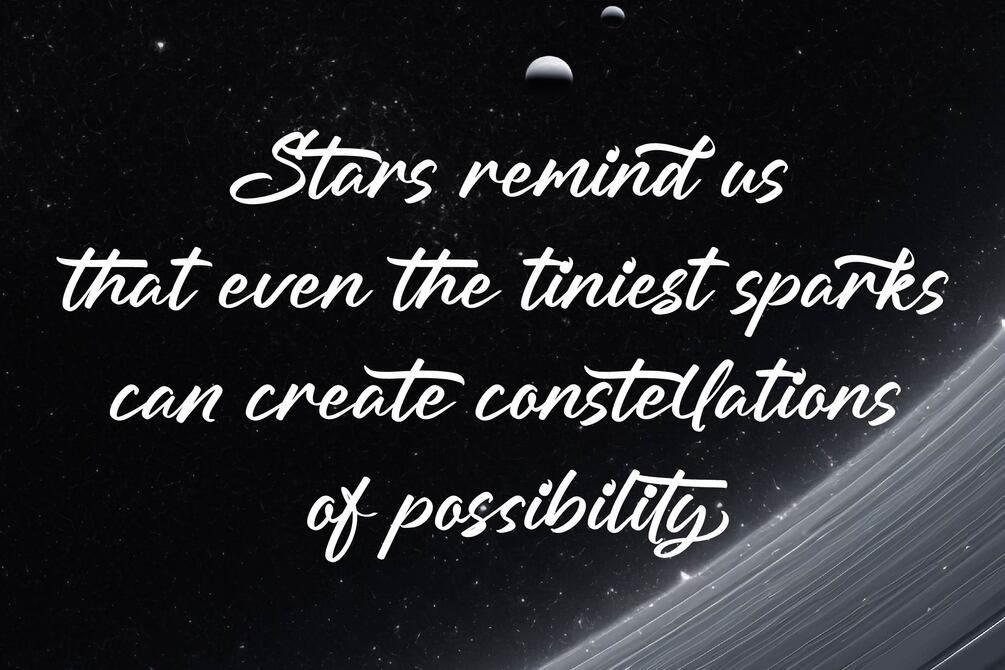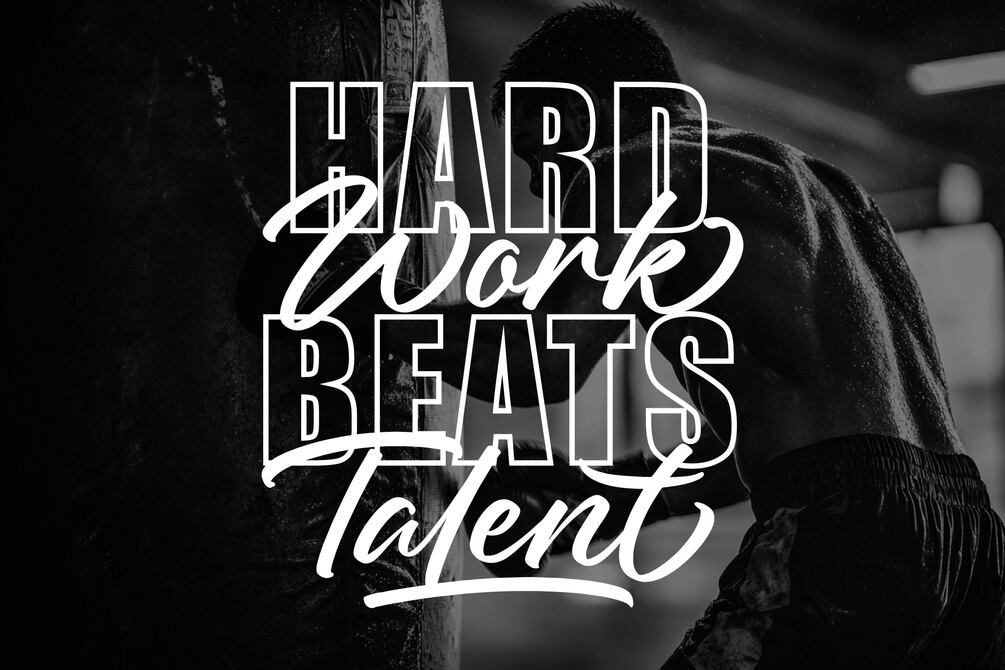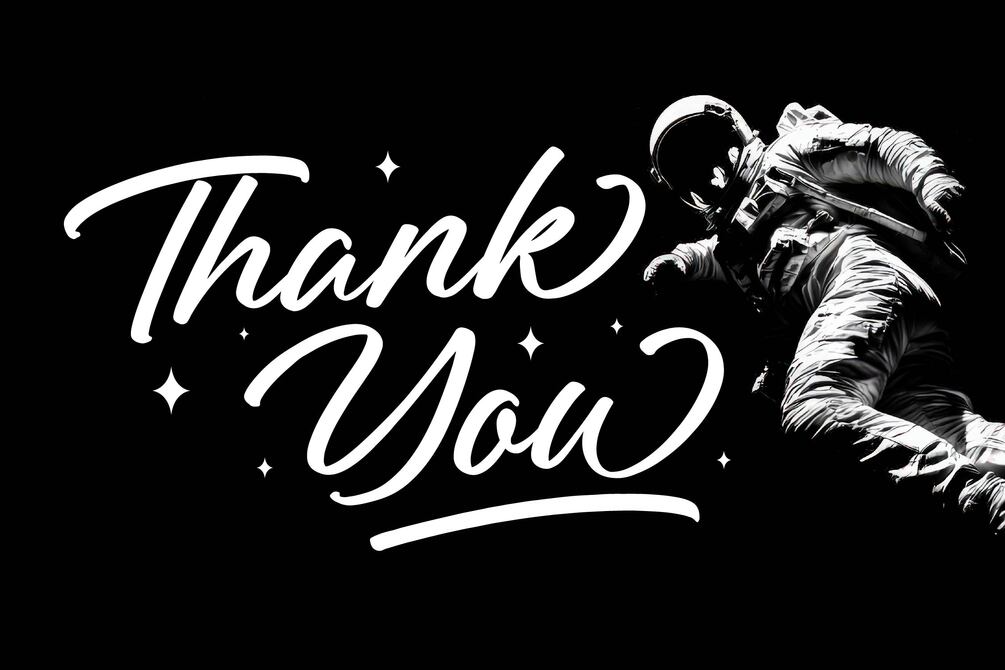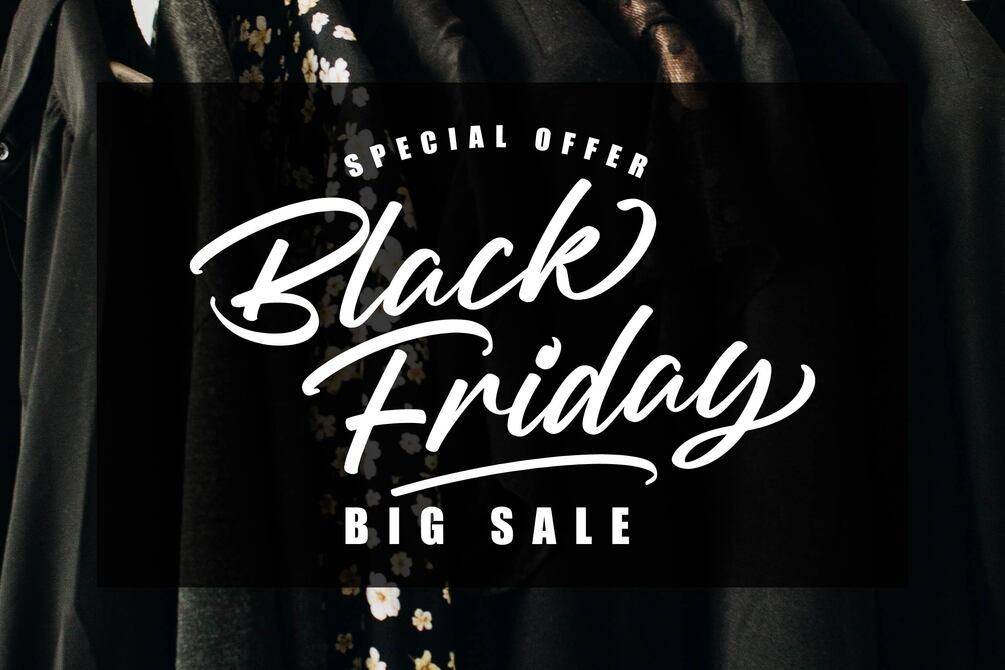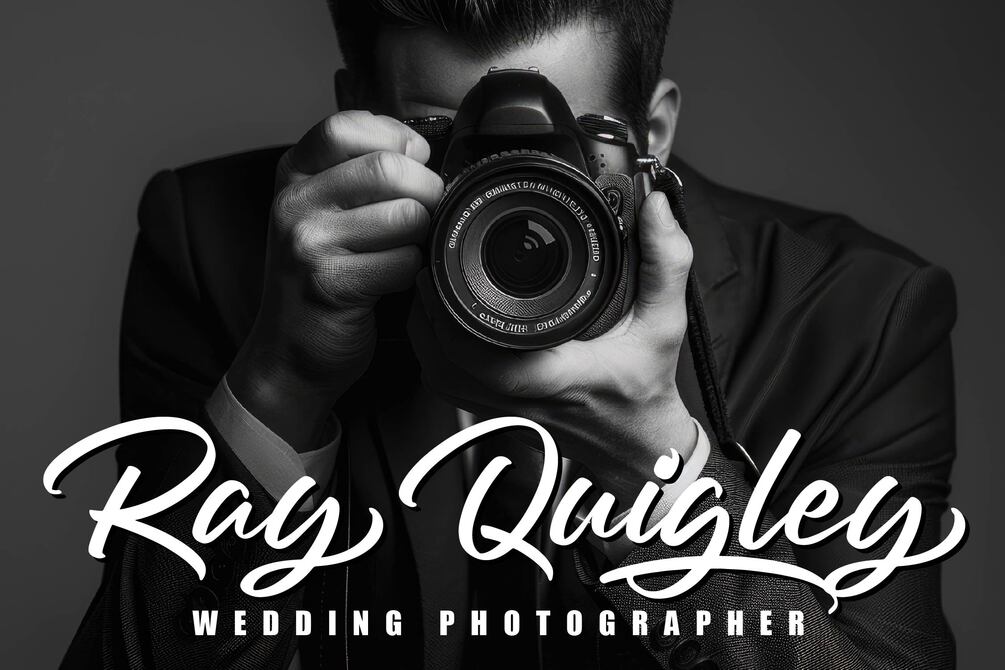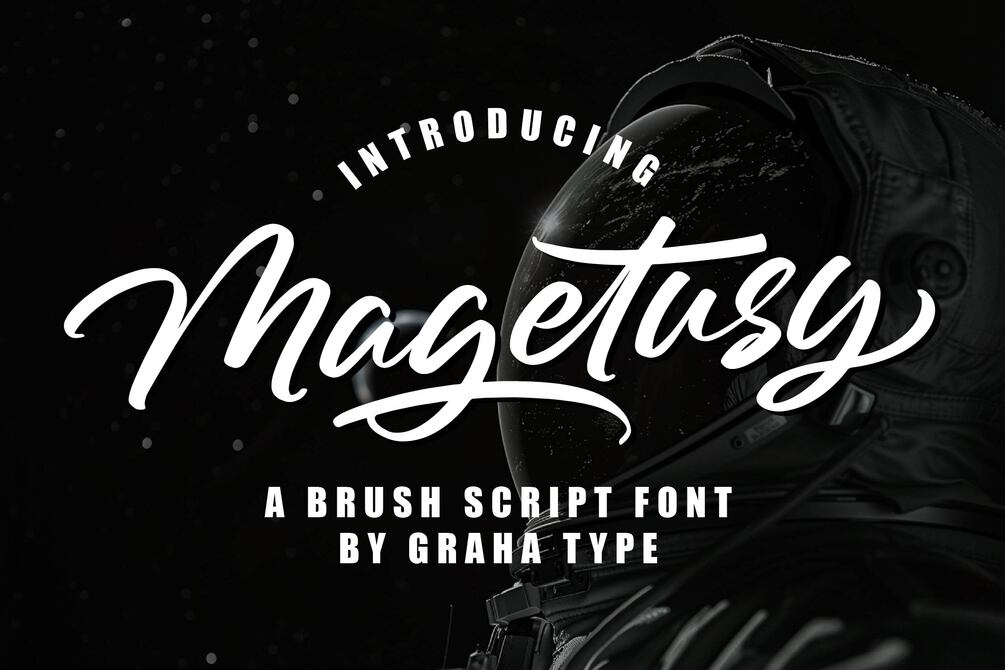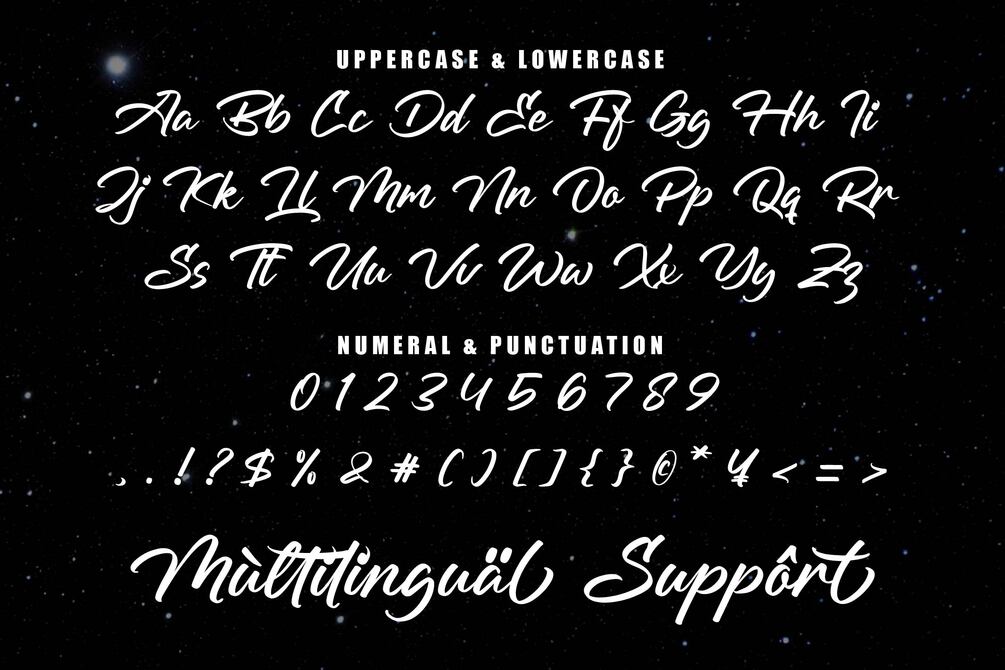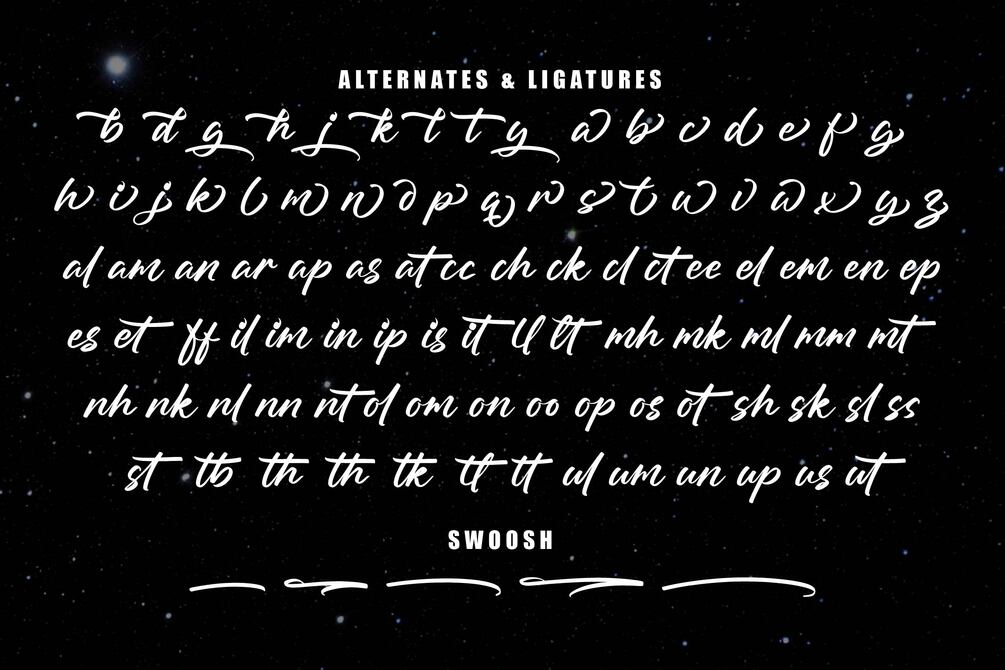
Magetusy - Brush Script Font
Magetusy is an modern brush script font, perfect for branding, logotypes, and posters. With its dynamic hand lettered strokes, this font adds warmth and character to your designs. Featuring OpenType capabilities, including alternates and ligatures, Magetusy offers flexibility and variation for a more harmonious appearance. It's an ideal choice for creating captivating brand identities and other creative projects.
Alternates and Ligatures